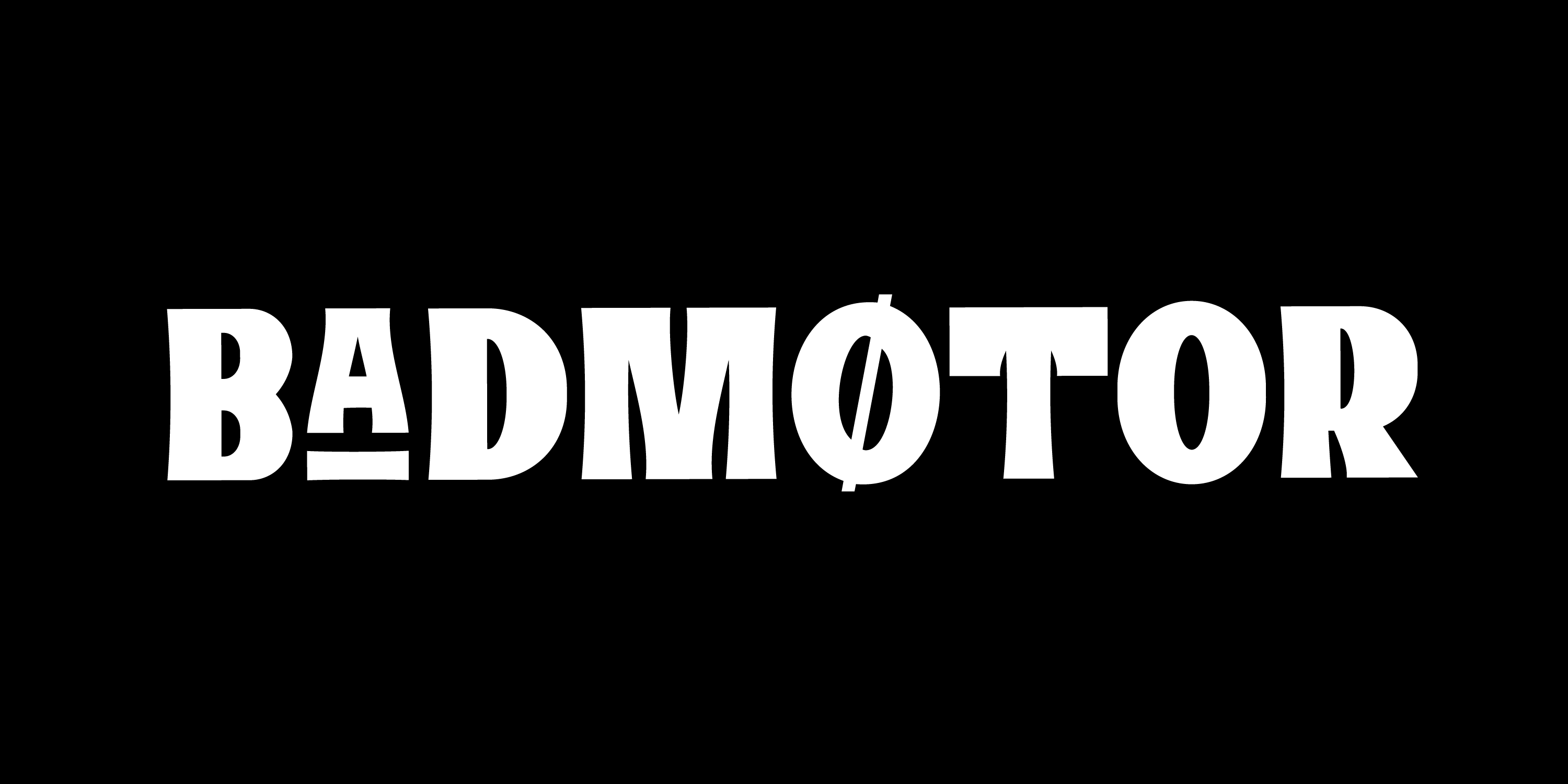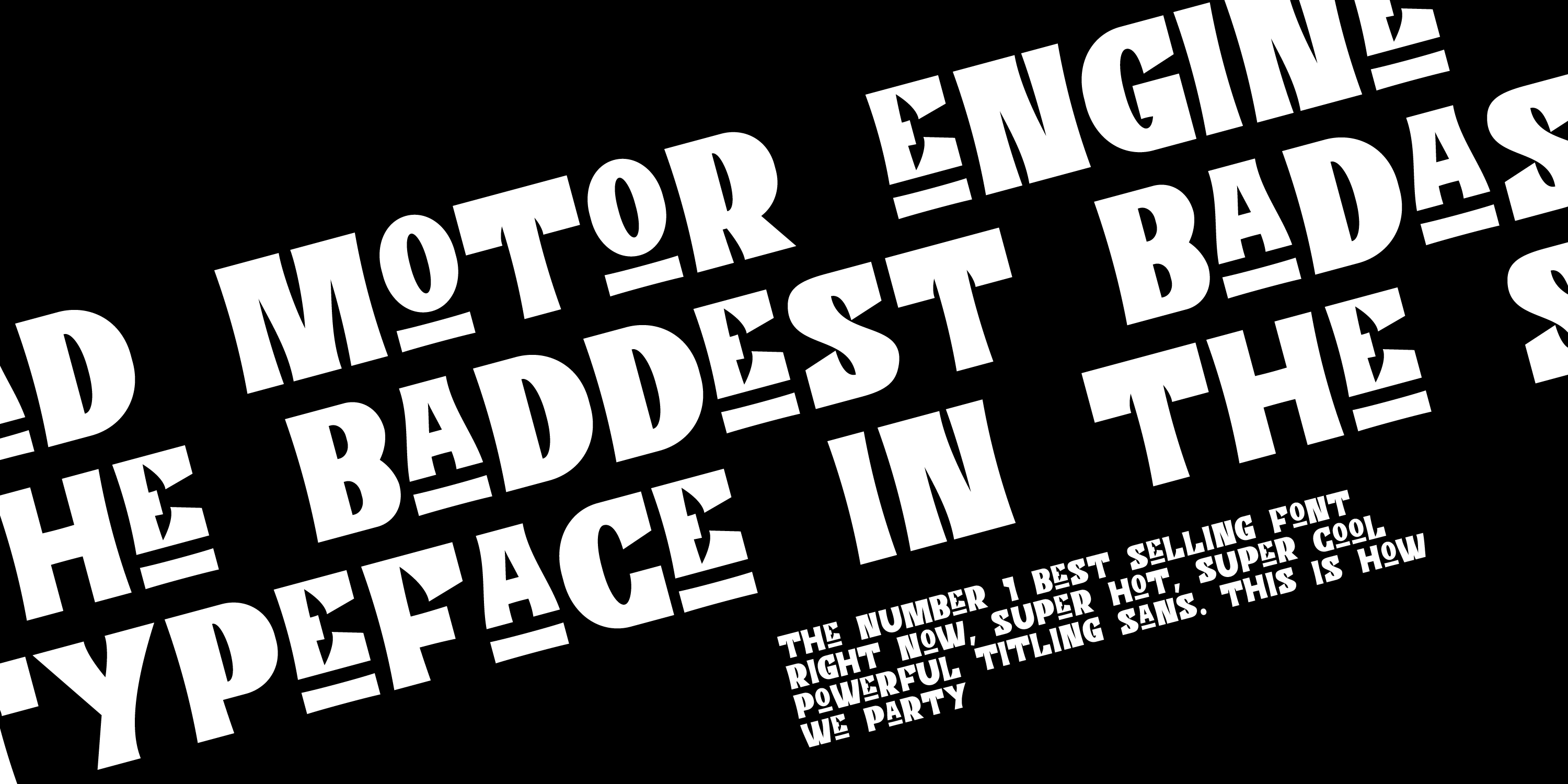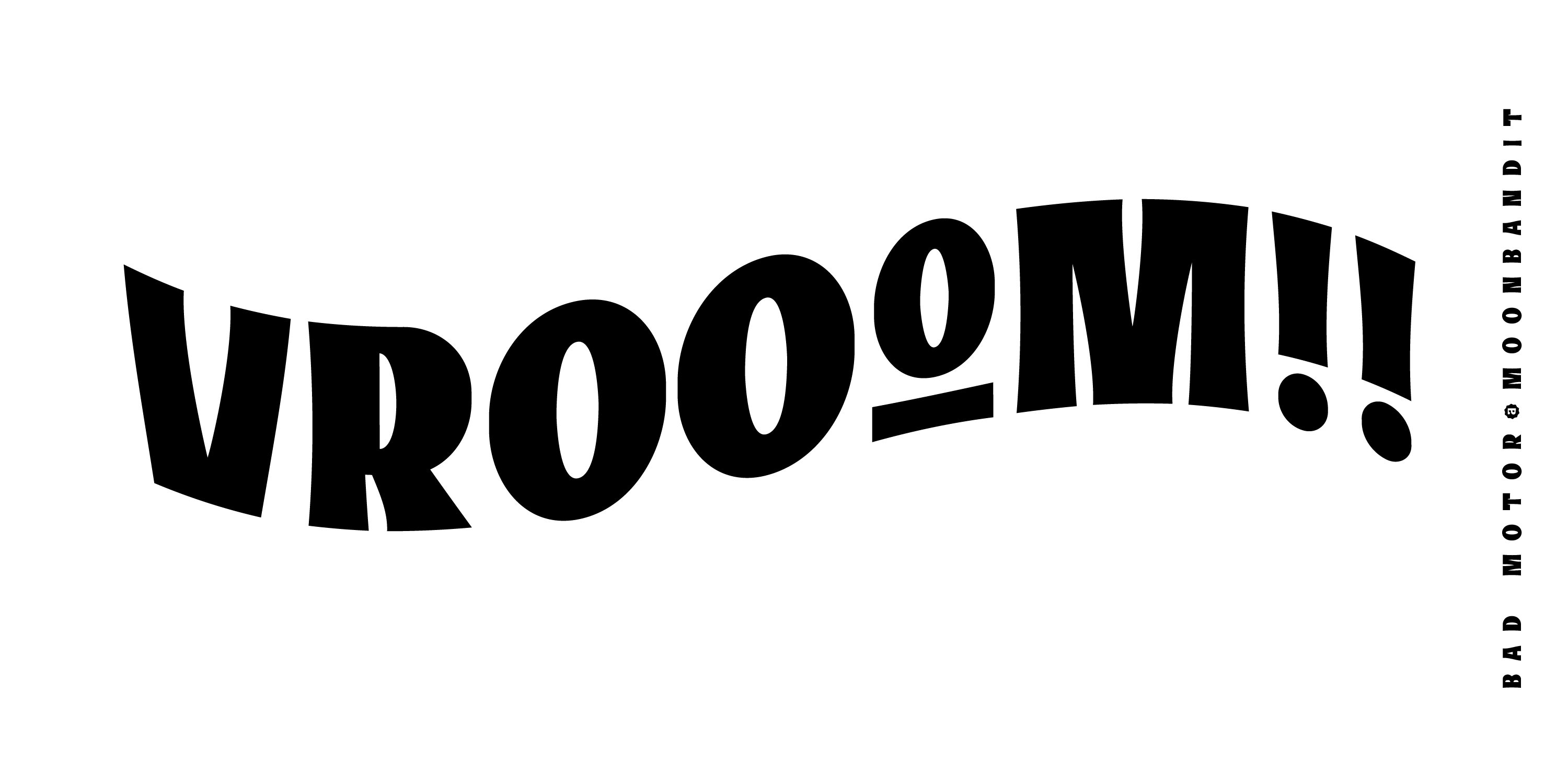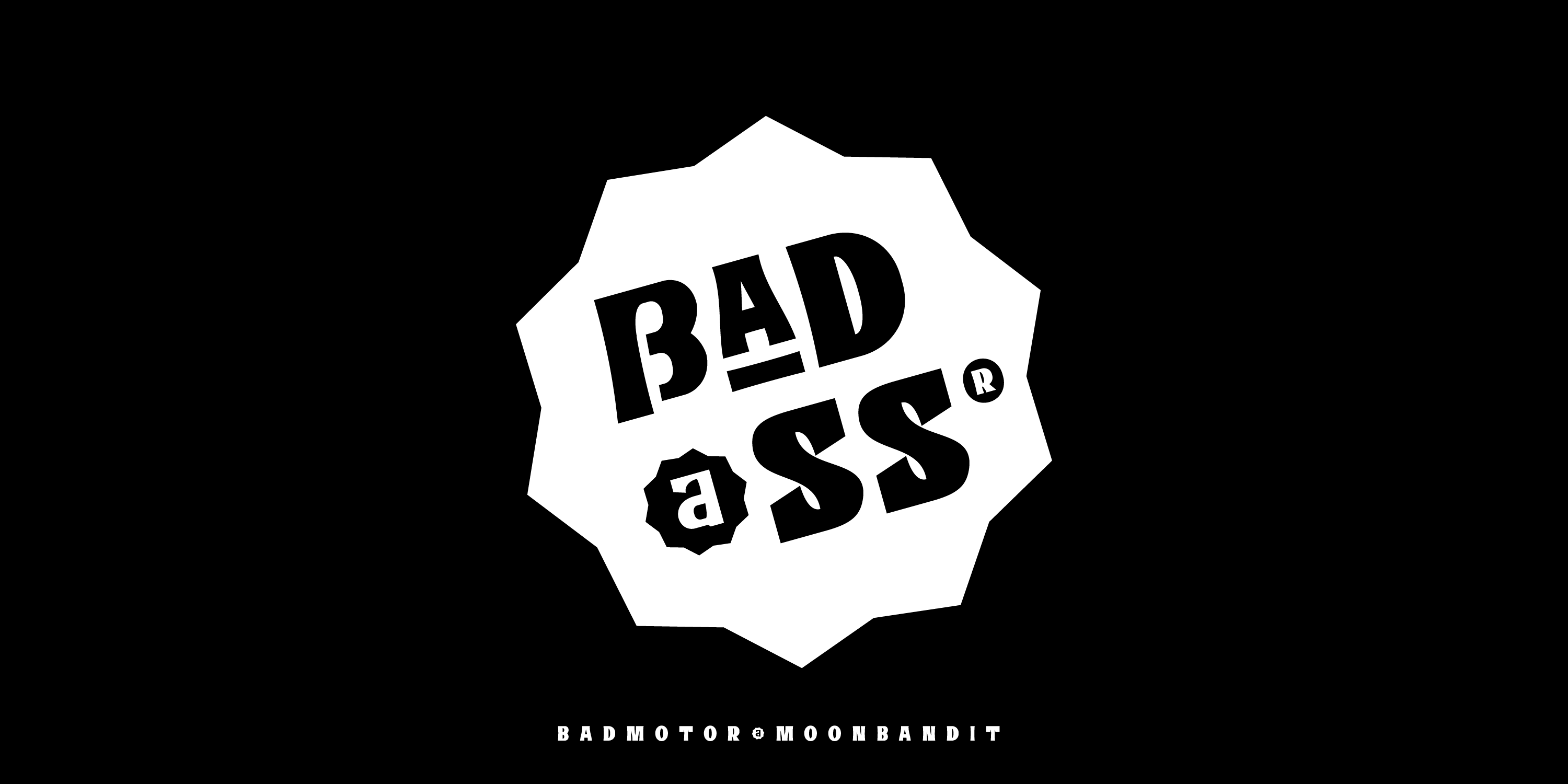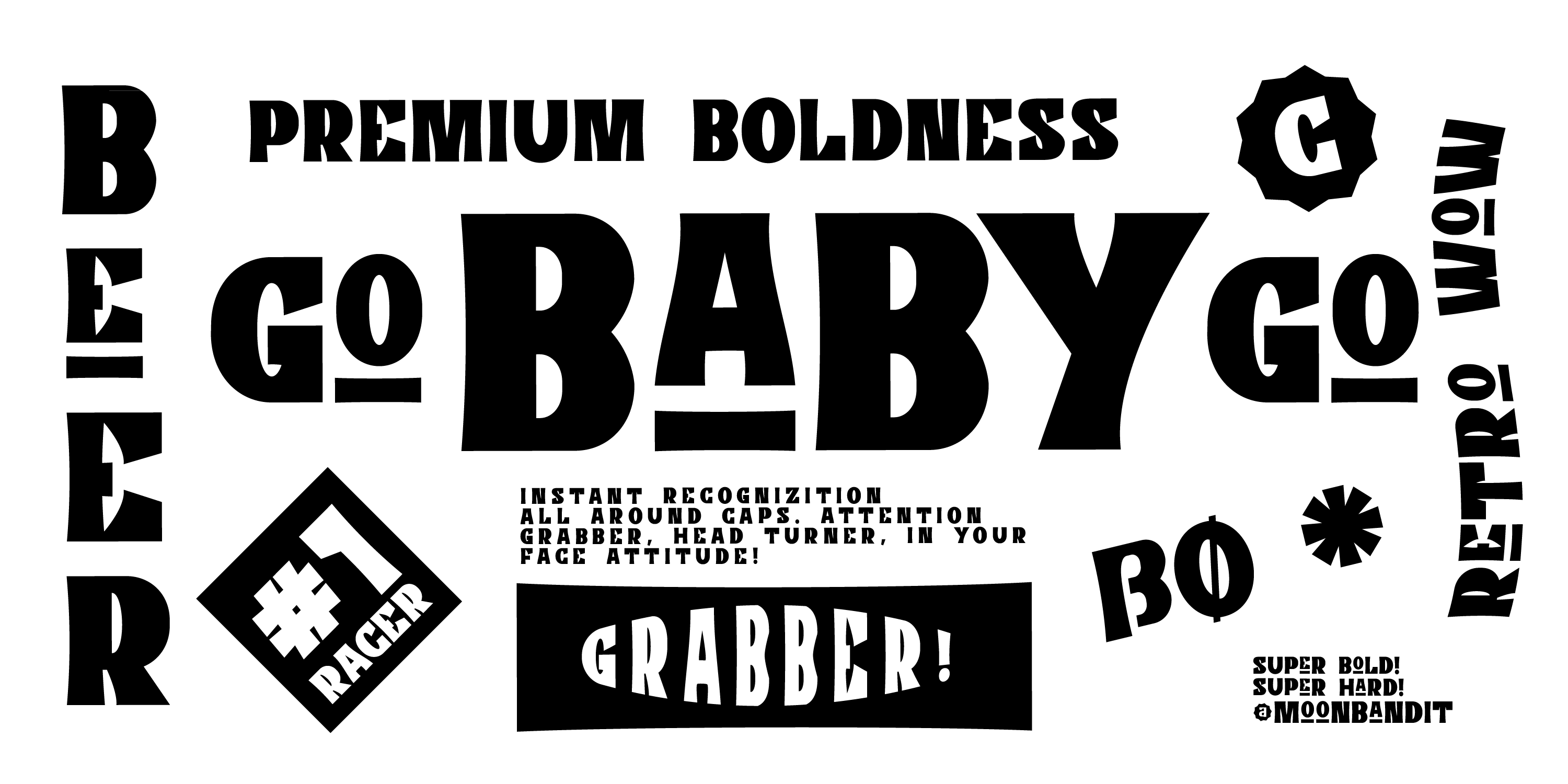
MBF Bad Motor
THE BIKER RIDES A BEAST ENGINE THROUGH THE VELVET ROAD INTO THE SUNSET
Moonbandit proudly presents Bad Motor typeface, a powerful bold vintage font. Inspired by the glorious old world of route 66, Bad Motor is perfect for that retro look and feel for your projects. This typeface is maxed with anarchy, attitude and attention. OpenType features include ligatures and kerning.